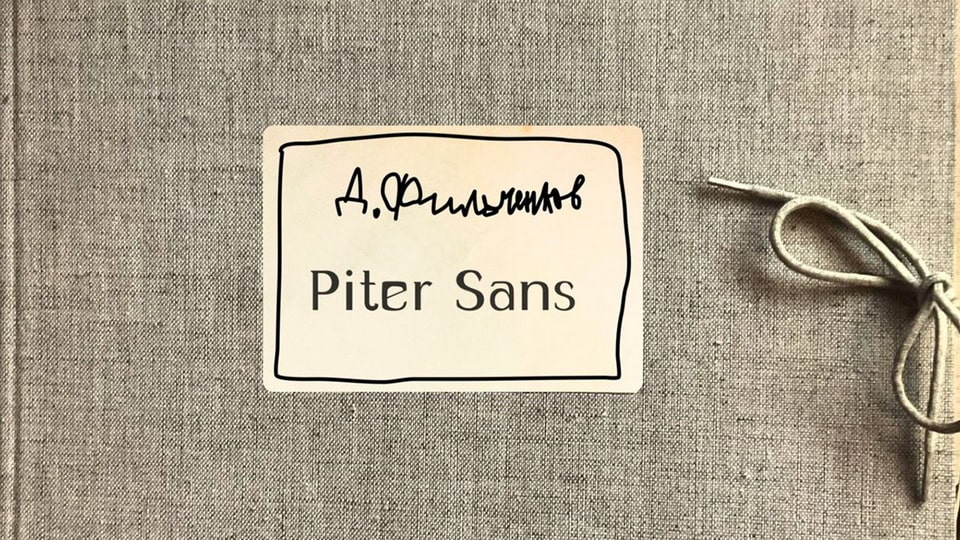
Download Piter Sans font, a display typeface that conveys the atmosphere of St. Petersburg as an industrial city. It is a typeface that stands out from conventional fonts due to its distinctive and innovative design elements.
Designer: Danila Filchenkov